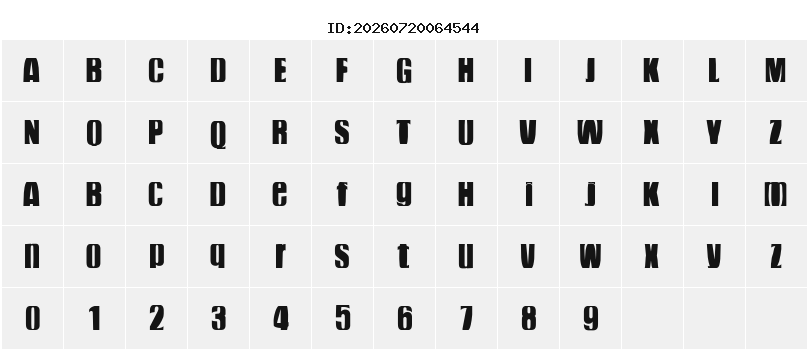
funky dunky Preview
• Font Name: funky dunky
• Font Style: funky dunky swell
• Designer: ©THOMAS CANALE 2013
About funky dunky.ttf
funky dunky.ttf is a modern, elegant sans-serif font designed for ultimate readability and visual harmony. Perfect for branding, headlines, web design, and print materials.